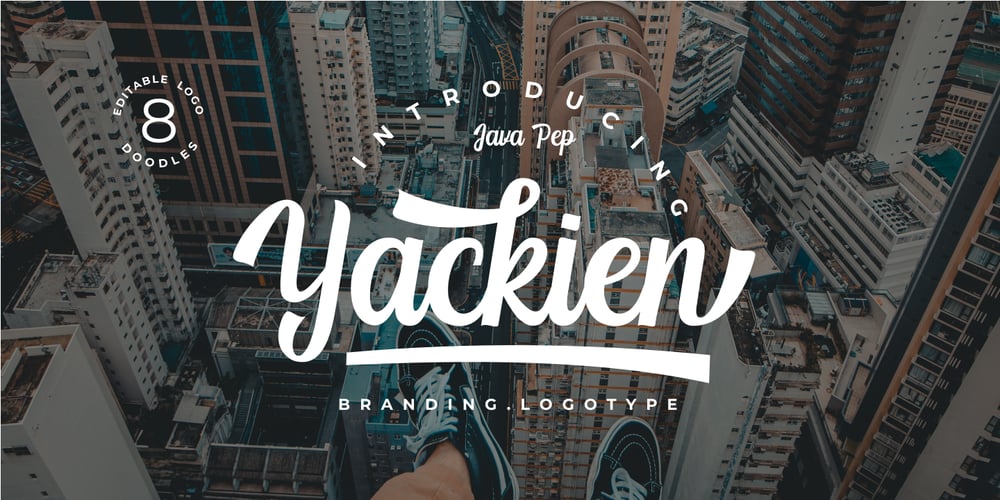
Yackien Font Family was designed by Java Pep and published by Java Pep. Yackien contains 3 styles and family package options. Introducing the logo font called Yackien. This font is made for branding and logo font purposes, but still elegant for other design projects. In the Indonesian language Yackien (yakin) means believing, trust, and convincing. So Yackien can give off an aura of trust, believe, convincing in your brand’s logo and designs. What’s the included: – Yackien font and swash – Yackien logo doodles – Multilingual, support 27 languages – PUA encoded – Opentype features I hope you enjoy using Yackien. Please let me know at java.indonesian@yahoo.com if you have any questions.